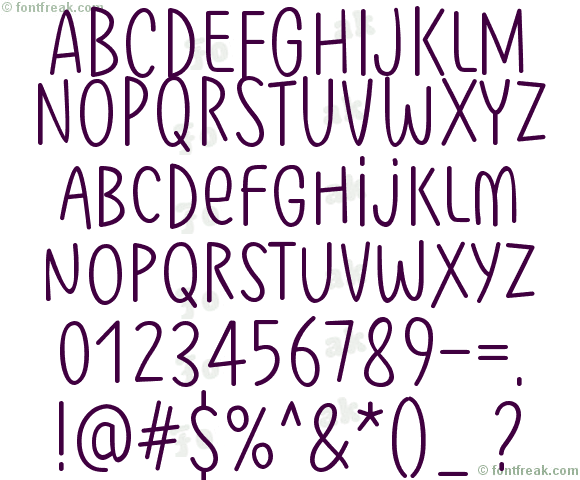
Kisah Ceritra
About Kisah Ceritra
Kisah Ceritra, designed by Situjuh Nazara, is a captivating display font that exudes a playful and artistic charm. This font is categorized as a decorative typeface, making it ideal for projects that require a touch of creativity and personality. Its unique visual characteristics include a medium stroke weight with a slight contrast, which allows for clear legibility while maintaining a whimsical appeal. The letters feature rounded edges and fluid forms that give the font a handwritten quality, enhancing its warmth and approachability.
Kisah Ceritra is well-suited for a variety of creative applications. It excels in wedding invitations, where its elegant yet casual style conveys a sense of joy and celebration. Additionally, it can be used effectively for children’s book covers, as its playful nature resonates with young audiences. The font’s charm also makes it a great choice for restaurant menus, allowing establishments to showcase their culinary offerings in an inviting manner. Furthermore, Kisah Ceritra is perfect for social media graphics, helping content creators capture attention in an engaging way.
The target audience for this delightful font includes graphic designers looking to add a unique touch to their projects, small business owners aiming to create memorable branding, and content creators seeking to enhance their visual storytelling. The versatility of Kisah Ceritra allows it to adapt to various themes and styles, making it a valuable addition to any designer's toolkit.
What truly sets the Kisah Ceritra font apart is its ability to blend playfulness with elegance, making it a versatile choice for a wide range of applications. Whether you're crafting a heartfelt invitation or an eye-catching promotional graphic, this font is sure to leave a lasting impression. For those interested, a Kisah Ceritra font free download is available, allowing you to explore its unique style for your projects.